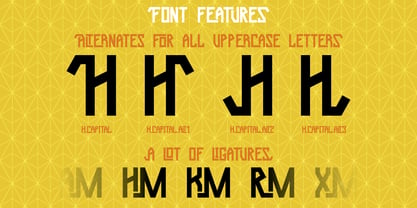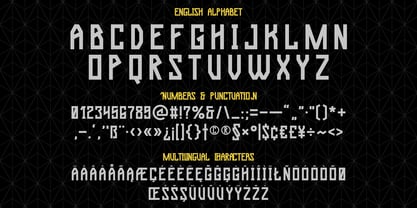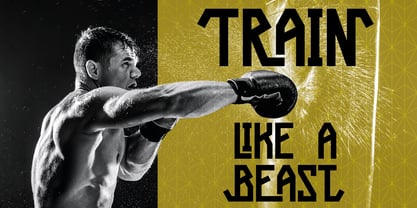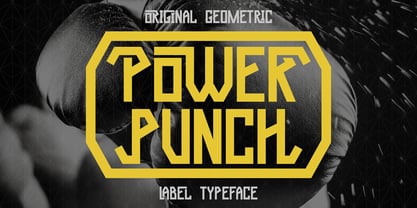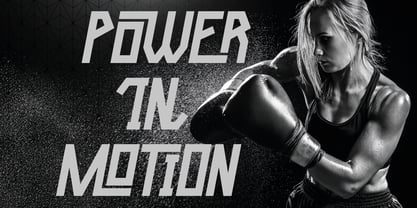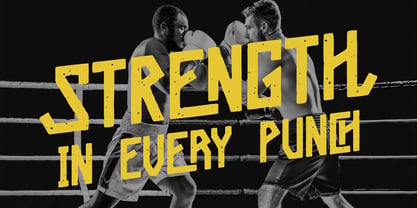
Power Punch
by Vozzy
The Power Punch Font Family was designed by Oleg Voznyy and published by Vozzy. Power Punch contains 2 styles and family package options. More about this family
Introducing the original display font "Power Punch" – a striking, handcrafted typeface made to stand out. This font includes extended characters, punctuation marks, and full multilingual support to suit a wide range of creative projects. It also features a rich set of stylistic ligatures to add extra flair to your designs. Whether you're working on posters, flyers, branding, or T-shirt graphics, this font brings personality and clarity to every layout. "Power Punch" was designed with attention to detail and a love for expressive typography. Try it out and give your work a unique, custom-made feel.
Designers: Oleg Voznyy
Foundry: Vozzy